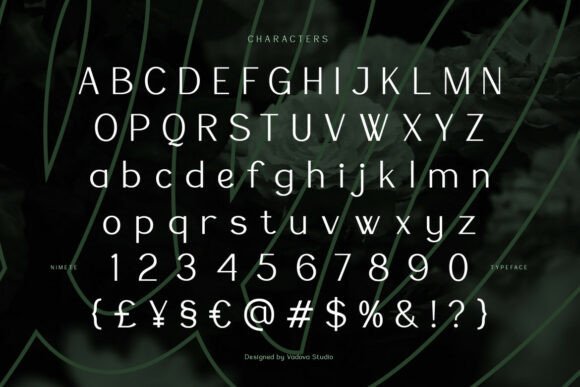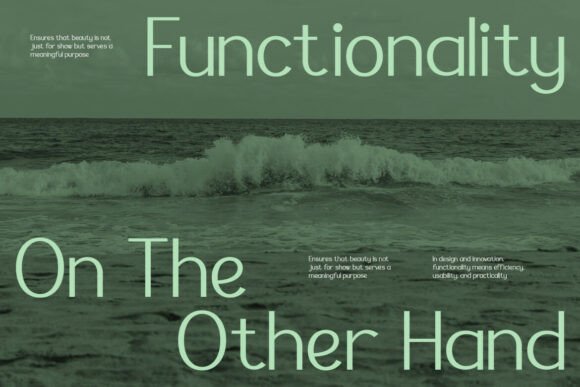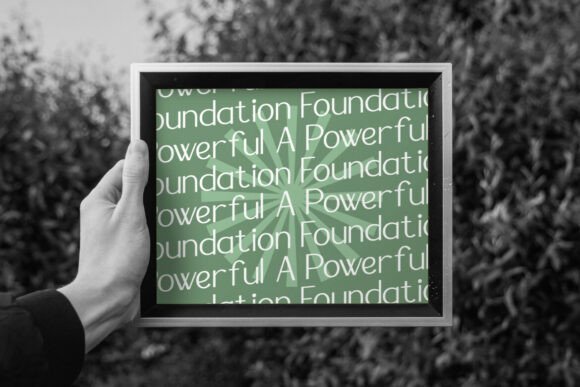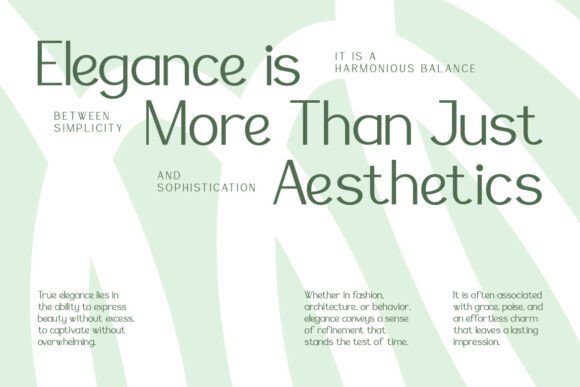
Nimete Font
Nimete is an elegant modern sans-serif typeface designed with clean lines, balanced proportions, and a refined minimalist aesthetic. Its simple yet confident letterforms create a calm, contemporary look that feels professional and timeless. The clarity of each character makes it highly readable while maintaining a sophisticated visual presence. Nimete is crafted to support modern branding, editorial layouts, and refined digital design.